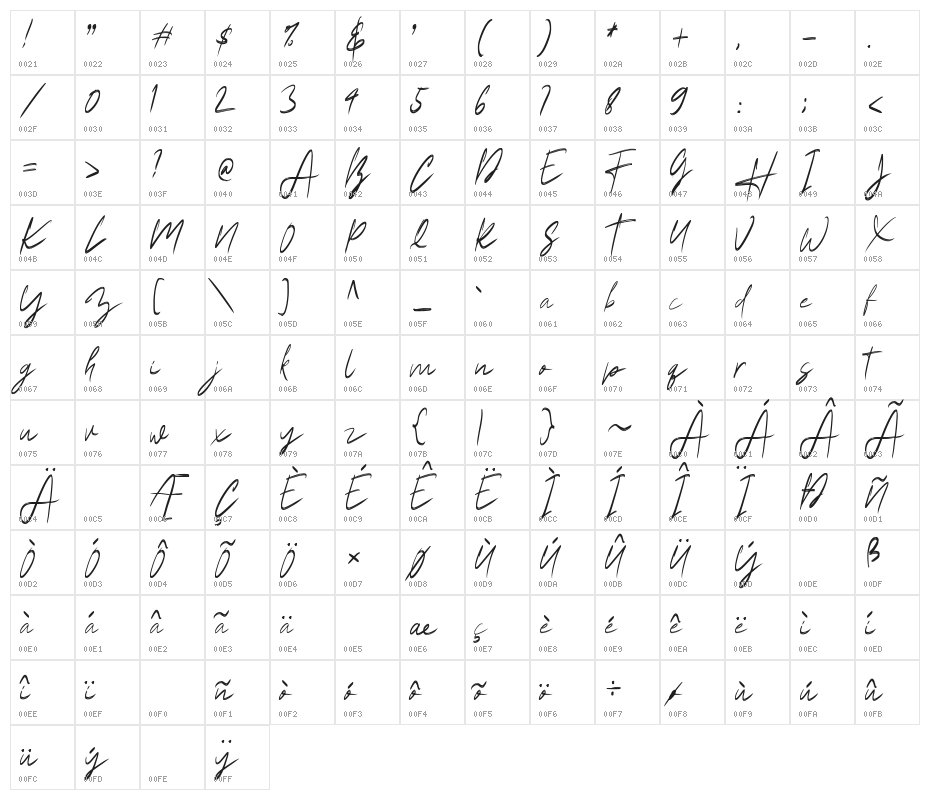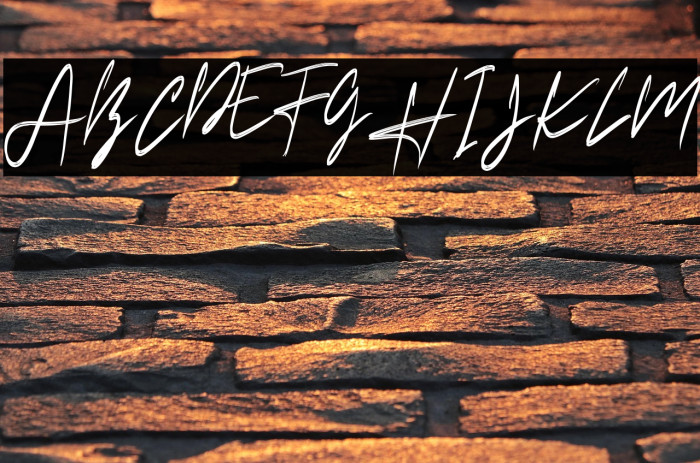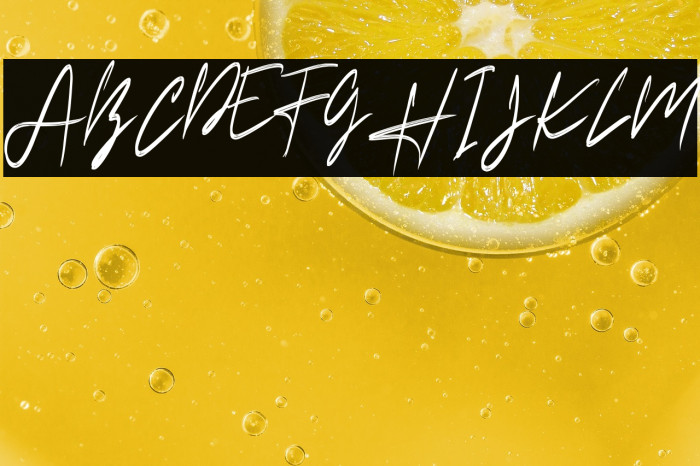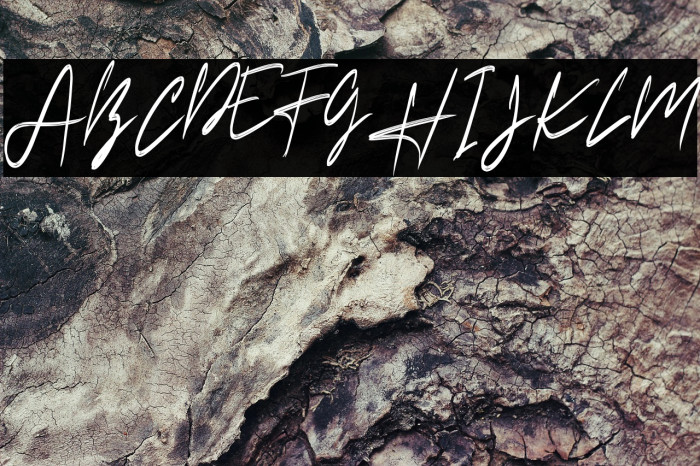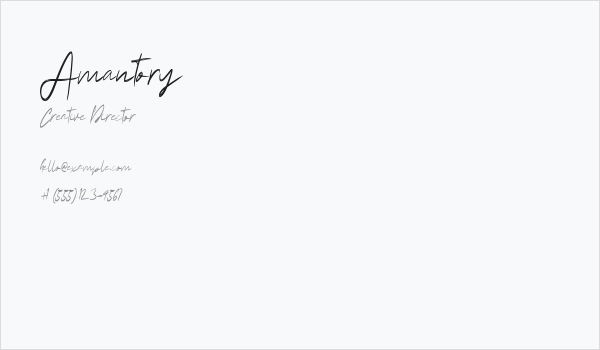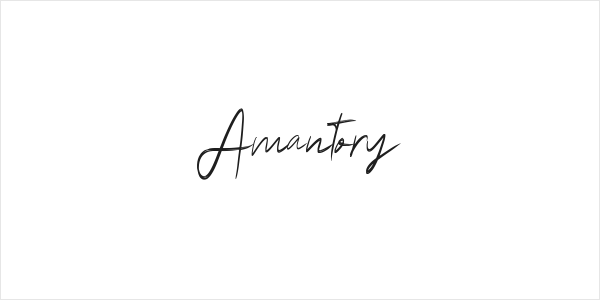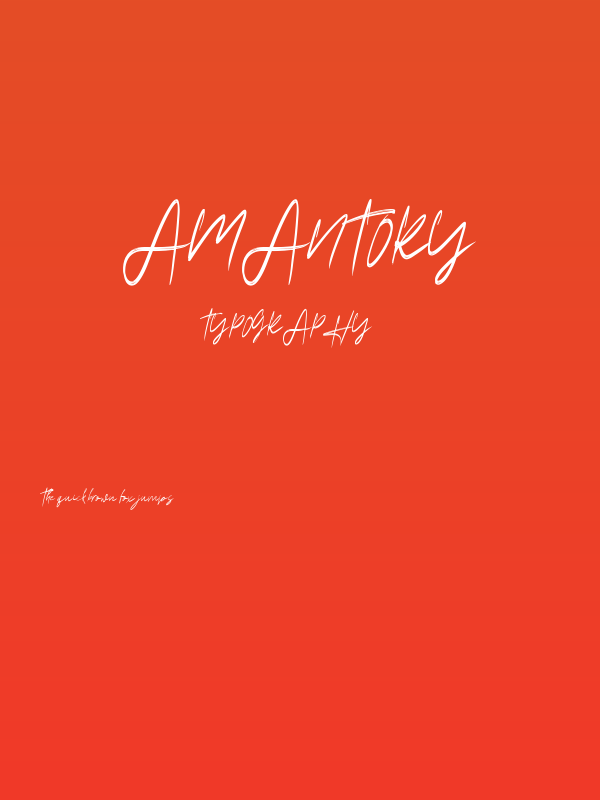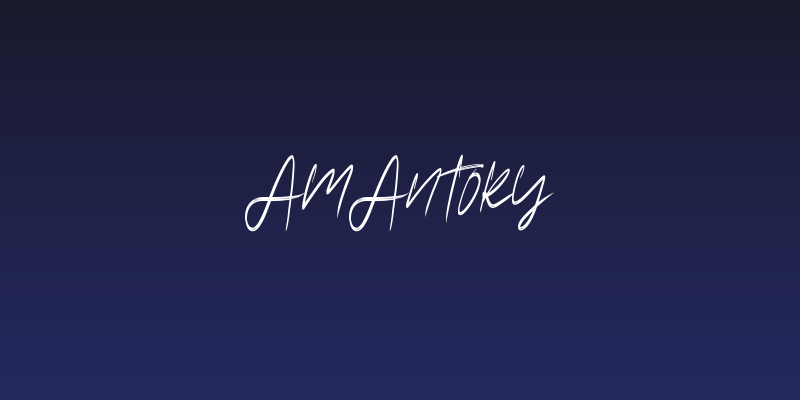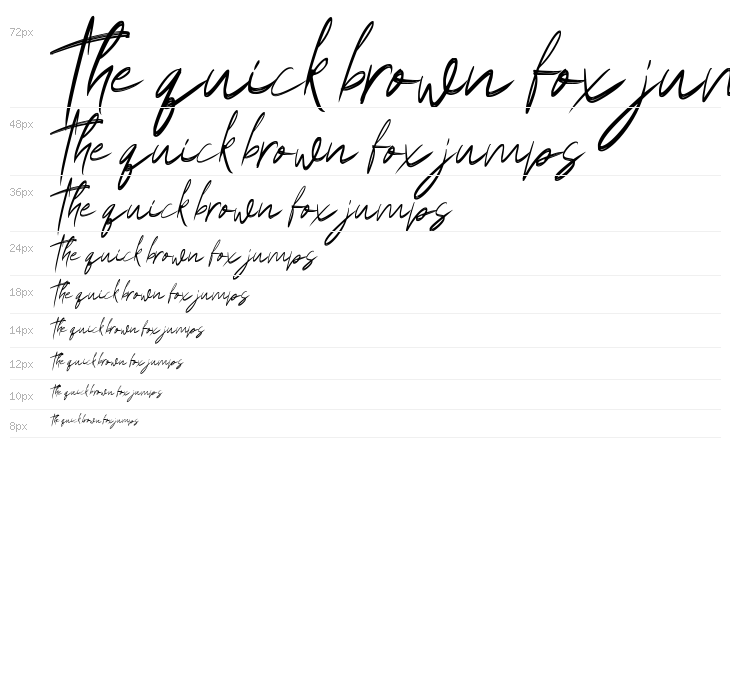
Amantory Font
Amantory Description
This font exudes a dynamic and expressive handwritten style, characterized by its fluid and cursive letterforms. The strokes are varied in thickness, giving it a lively and spontaneous appearance. Each character flows into the next, creating a sense of movement and continuity. The uppercase letters are bold and prominent, while the lowercase letters maintain a consistent rhythm. The numerals and special characters are crafted with the same energetic flair, ensuring a cohesive look across all elements. This font is perfect for adding a personal touch to any project, capturing attention with its unique and artistic style.
| Proposed Projects | Ideal for personal branding, invitations, greeting cards, and artistic projects. |